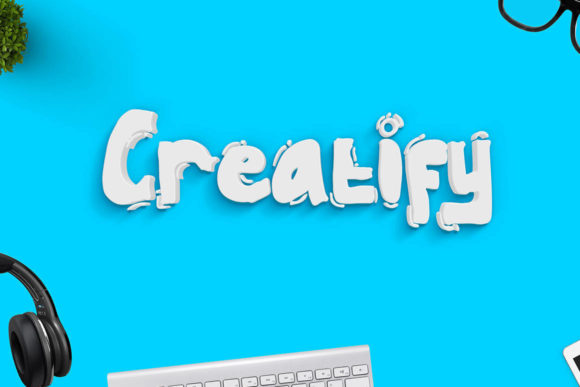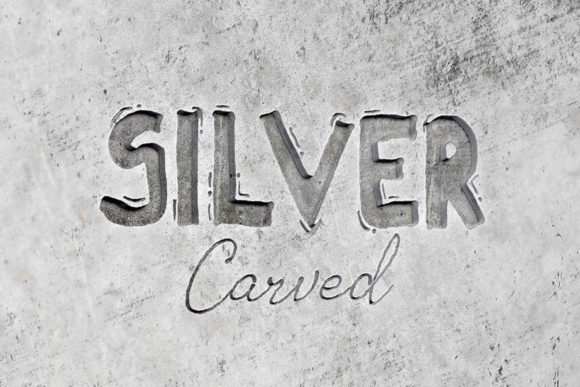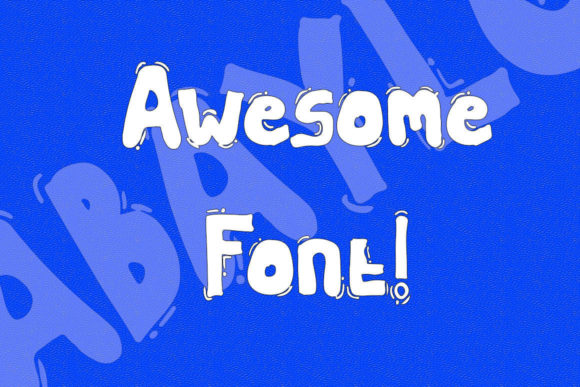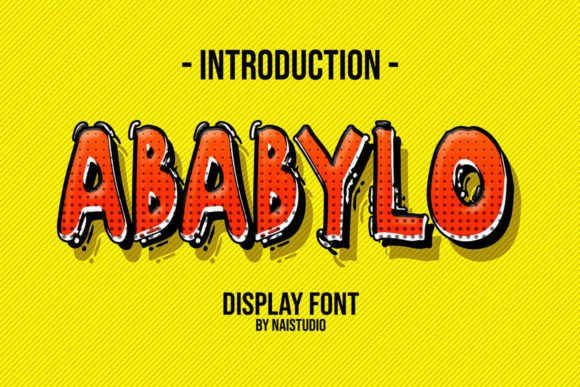
Introduction to Ababylo Font
Ababylo is a unique and playful display font.
Incredibly versatile, this font fits a wide pool of designs, elevating them to the highest levels Add this font to your favorite creative ideas and notice how it makes them come alive.
Key Features of Ababylo Font
Why Choose Ababylo Font?
Ababylo Font offers exceptional quality and versatility, making it a valuable addition to your design toolkit. Whether you’re creating for personal projects or commercial use, Ababylo Font delivers professional results.